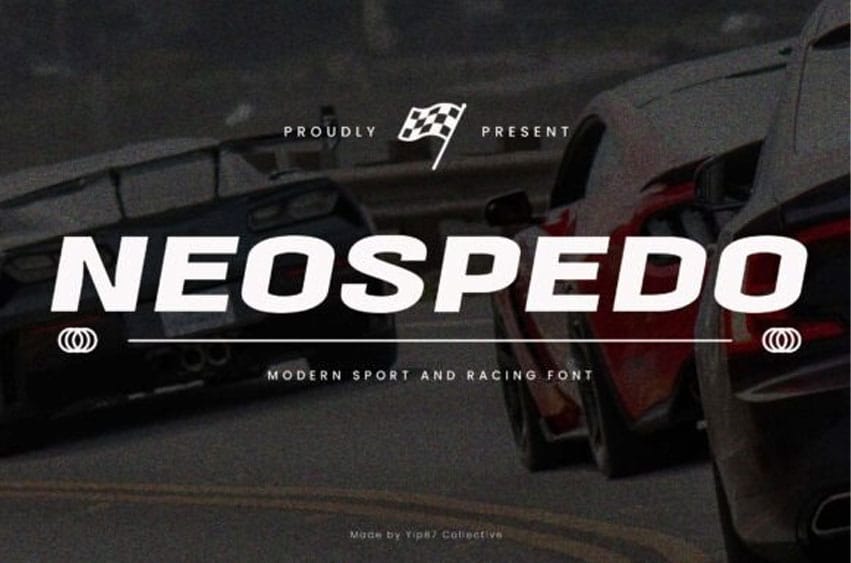
Neospedo Font is a dynamic sport and racing font that exudes energy and speed. Its bold letterforms and sharp edges are reminiscent of the adrenaline-fueled world of motorsports.
Designed for sports-related projects, perfect for branding, signage, and merchandise associated with racing events, teams, and athletic activities. Elevate your branding design projects with Neospedo Font today.